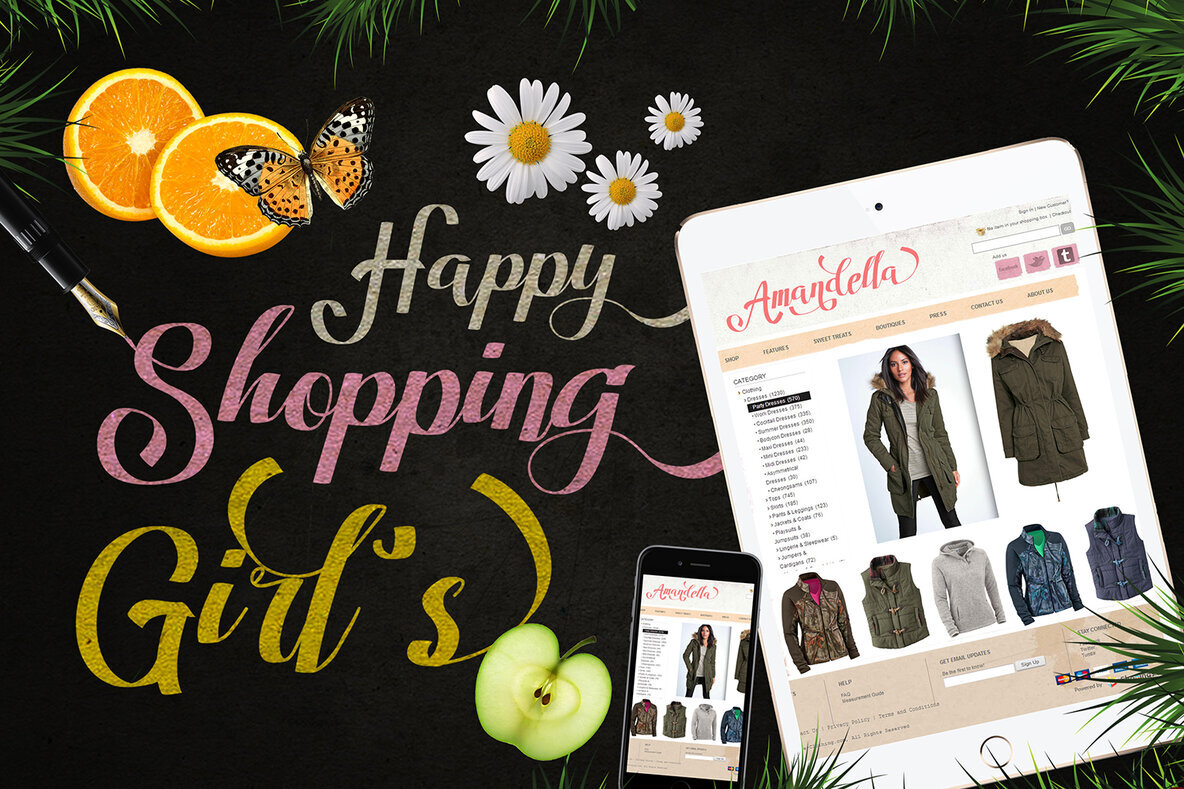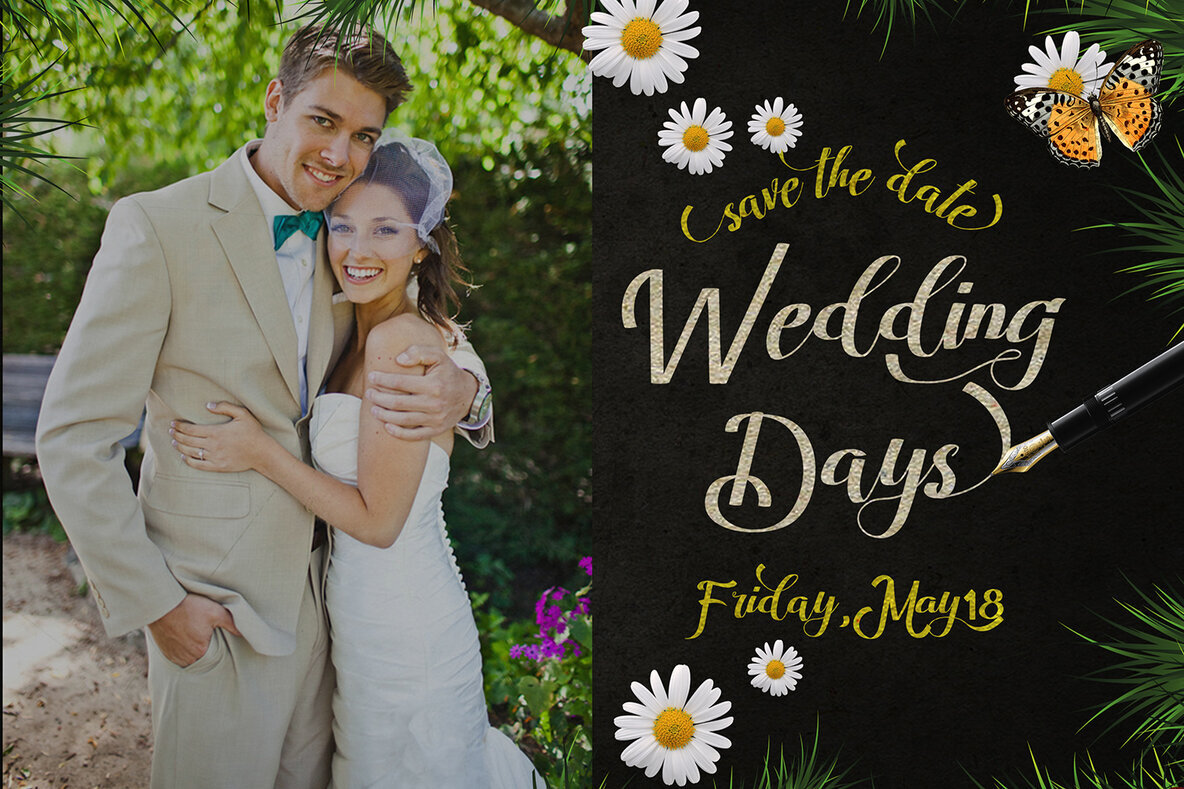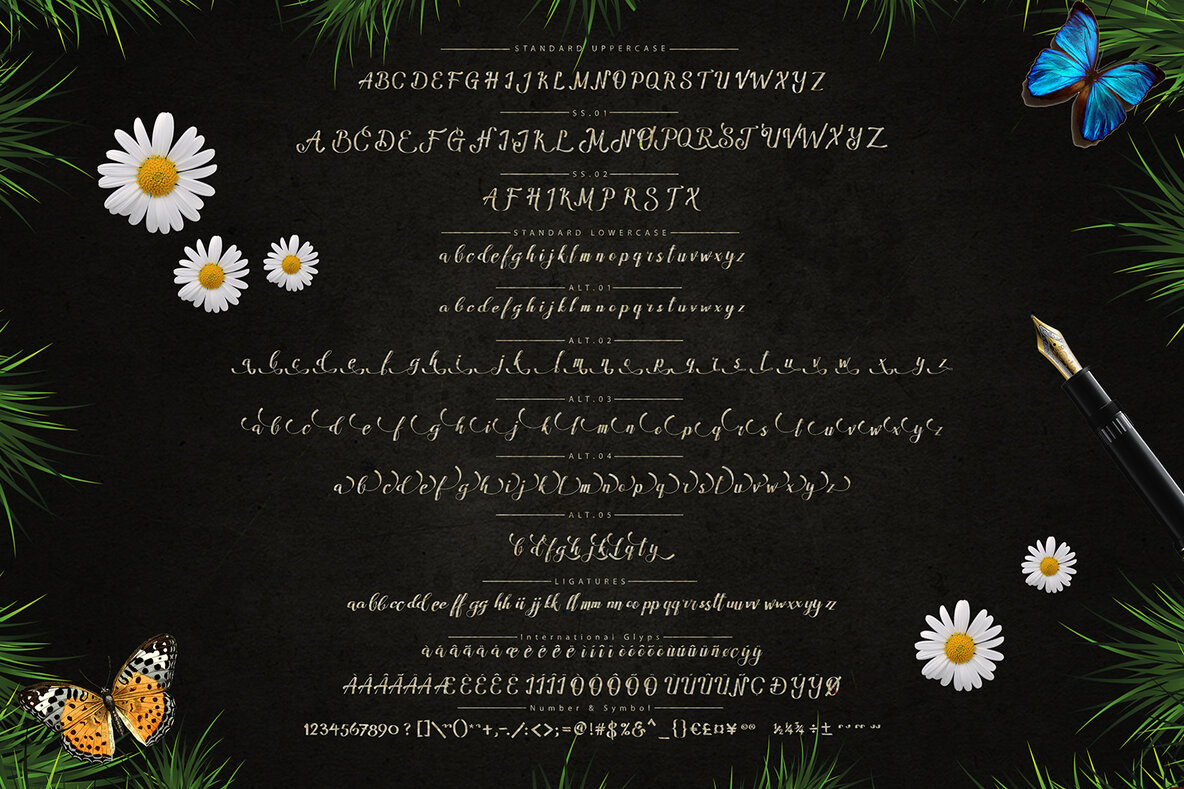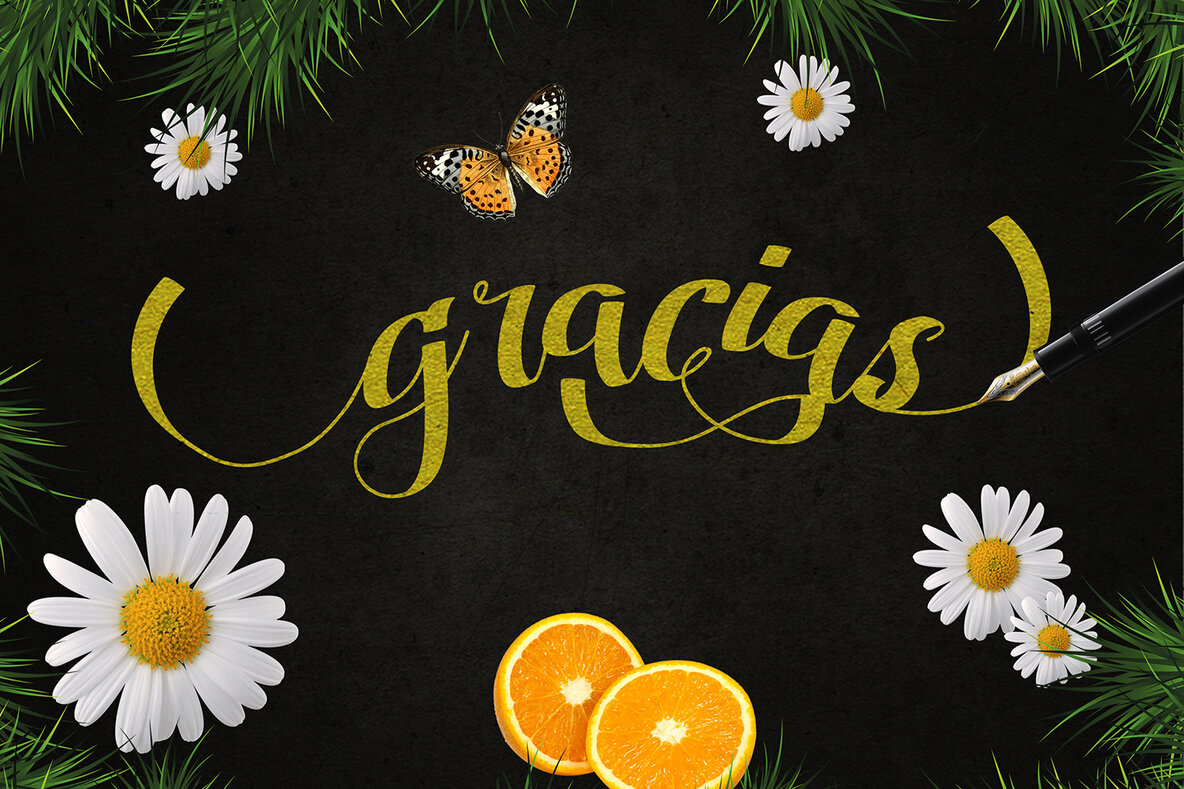
Amandella: The Handwriting Font with Personality
Amandella offers a unique blend of style and versatility with its cool, distinctive character. Crafted to deliver a personable touch, this handwriting font is a creative asset for any project requiring authenticity and expression.
• Poster Design
• Book Covers
• Merchandise
• Fashion Campaigns
• Newsletters
• Branding
• Advertising
• Magazines
• Greeting Cards
• Album Covers
• Quote Designs